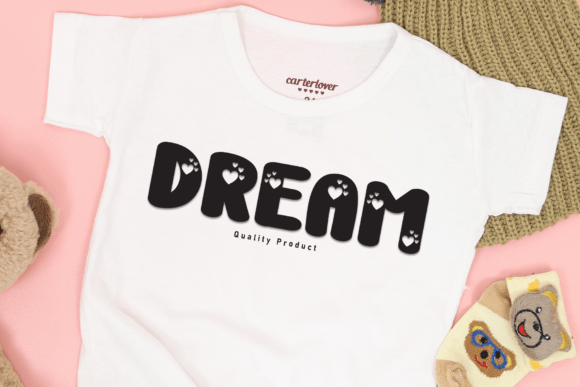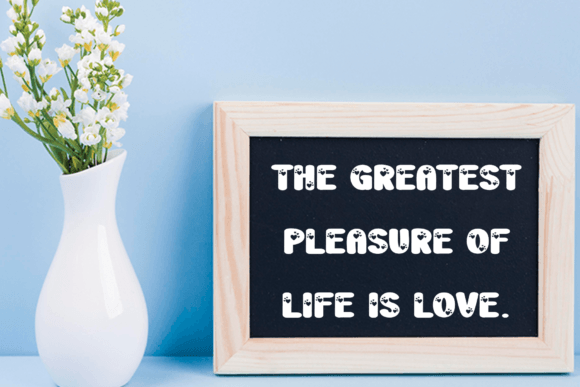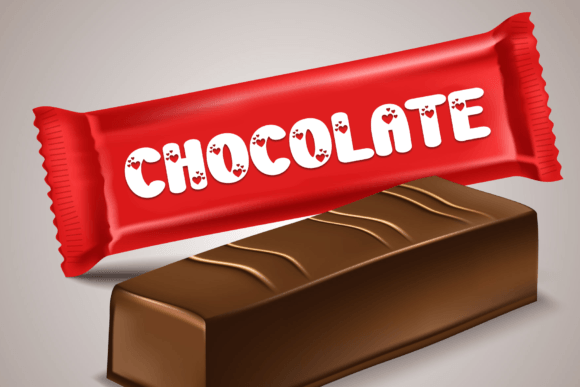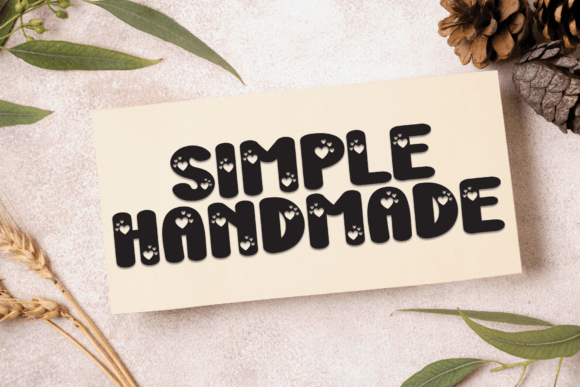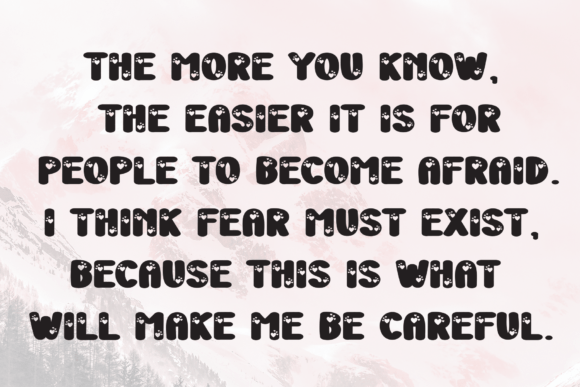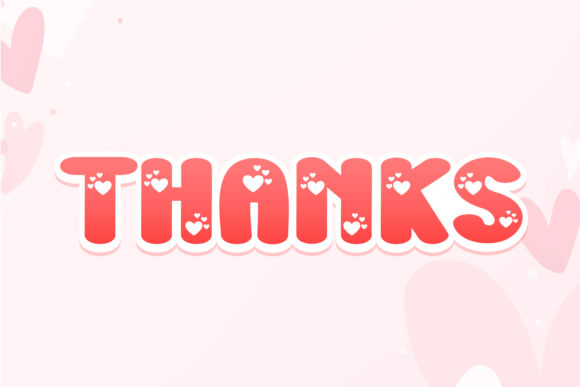
The Boho Love Font: A Quirky and Versatile Display Font for Creative Minds
I’ll never forget the design project that led me to discover the Boho Love font. I was working on a branding project for a boutique client, and I was struggling to find the perfect font to capture her eclectic and free-spirited vibe. That’s when I stumbled upon Boho Love, and it instantly became my go-to font for the project. In this article, I’ll share my love for this unique display font, its features, and how to make the most of it in your designs.
An Honest Review of Boho Love
So, what makes Boho Love so special? Here are some things I love about this font:
• ✨ Unique and quirky design that’s perfect for creative projects
• ✅ Highly versatile and adaptable to various contexts
• 🔥 Great for headlines, titles, and display text
• 🌈 Wide range of OpenType features and glyphs to experiment with
Of course, no font is perfect, and Boho Love has a few quirks:
• 🤔 May not be the best choice for body text or long paragraphs
• ⚠️ Some characters may not work well in smaller font sizes
How to Use Boho Love in Your Designs
The Backstory of Boho Love
Boho Love was designed with the creative and free-spirited in mind. The font’s creator wanted to craft a typeface that would capture the essence of bohemian style, with its eclectic mix of vintage and modern elements. The result is a font that’s both quirky and charming, perfect for designers who want to add a touch of personality to their work.
What is Boho Love best used for? Boho Love is perfect for display text, headlines, and titles. It’s ideal for creative projects, such as branding, packaging, and advertising.
Is Boho Love suitable for body text? While Boho Love is a beautiful font, it’s not the best choice for body text or long paragraphs. Its quirky design and unique features are better suited for display text.